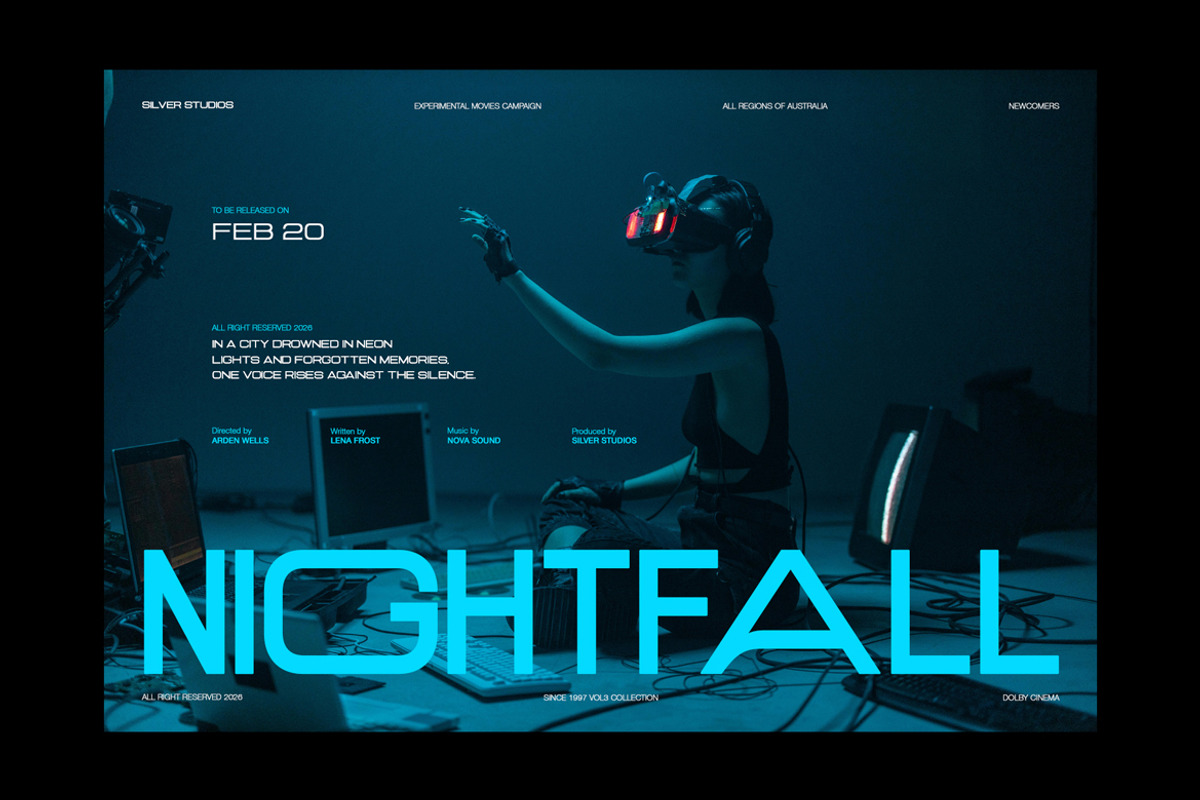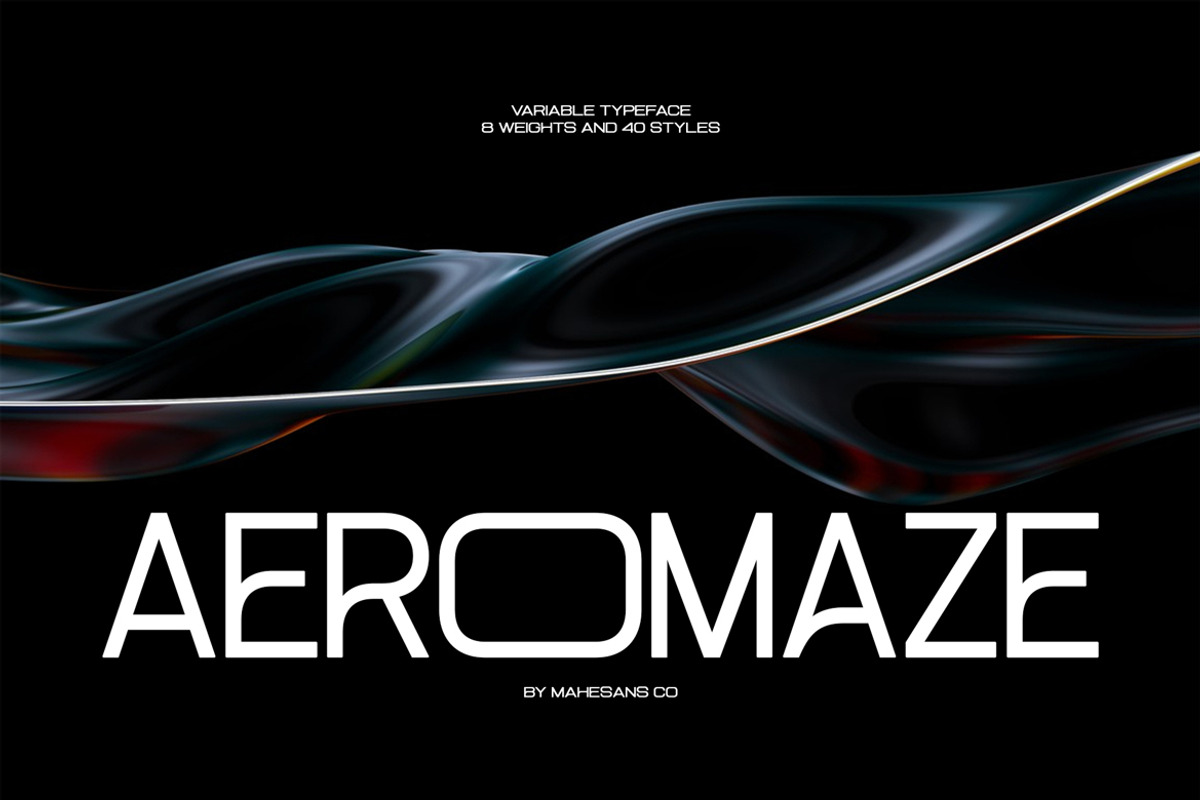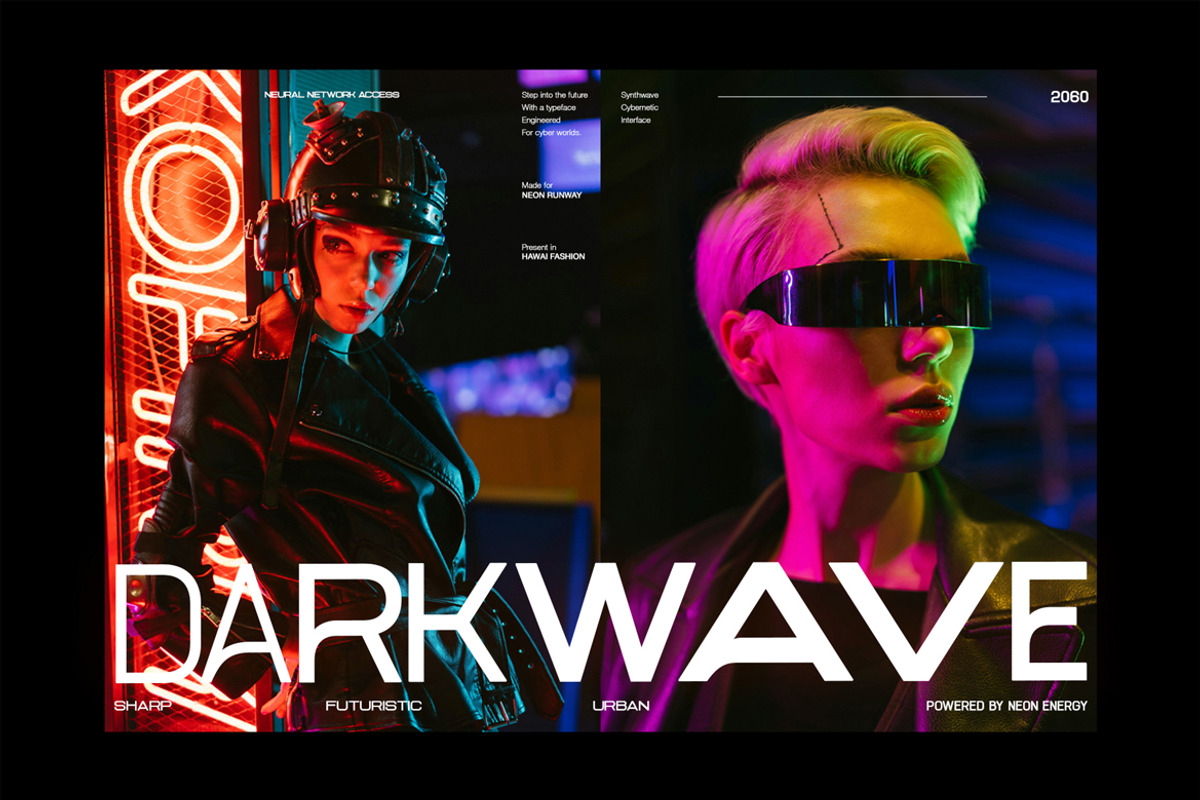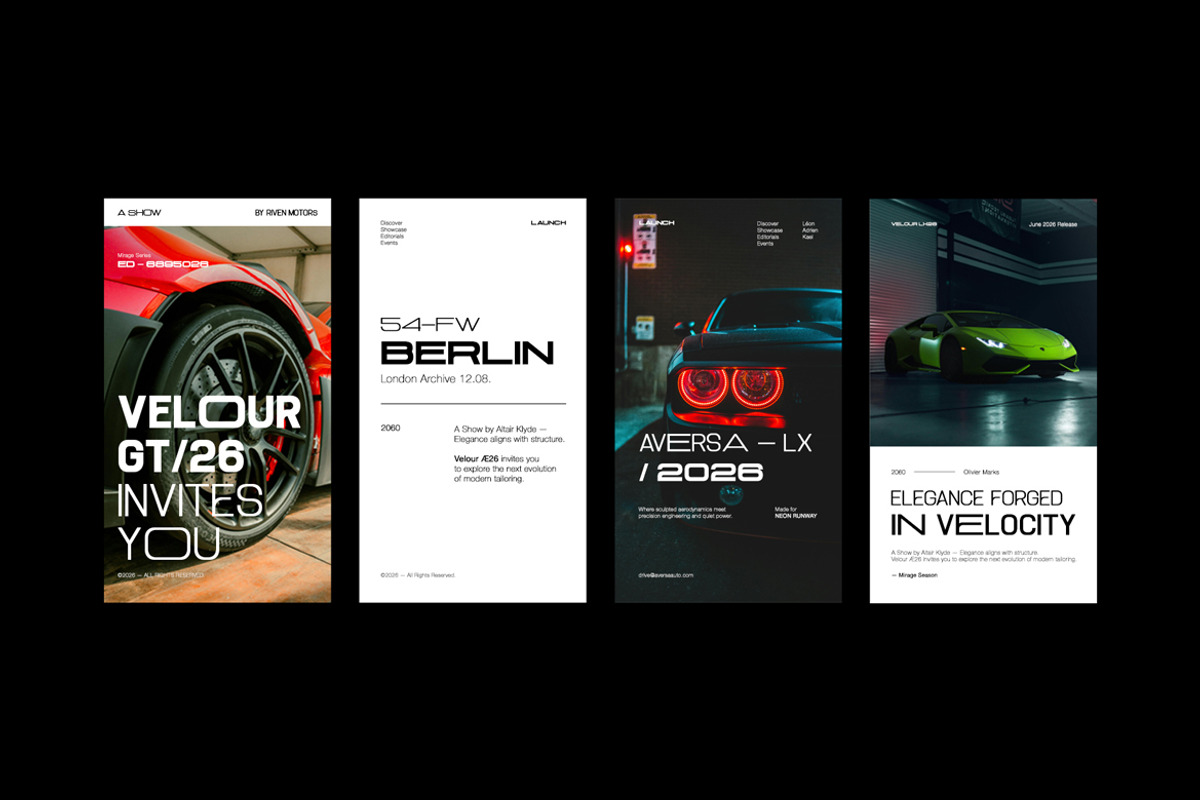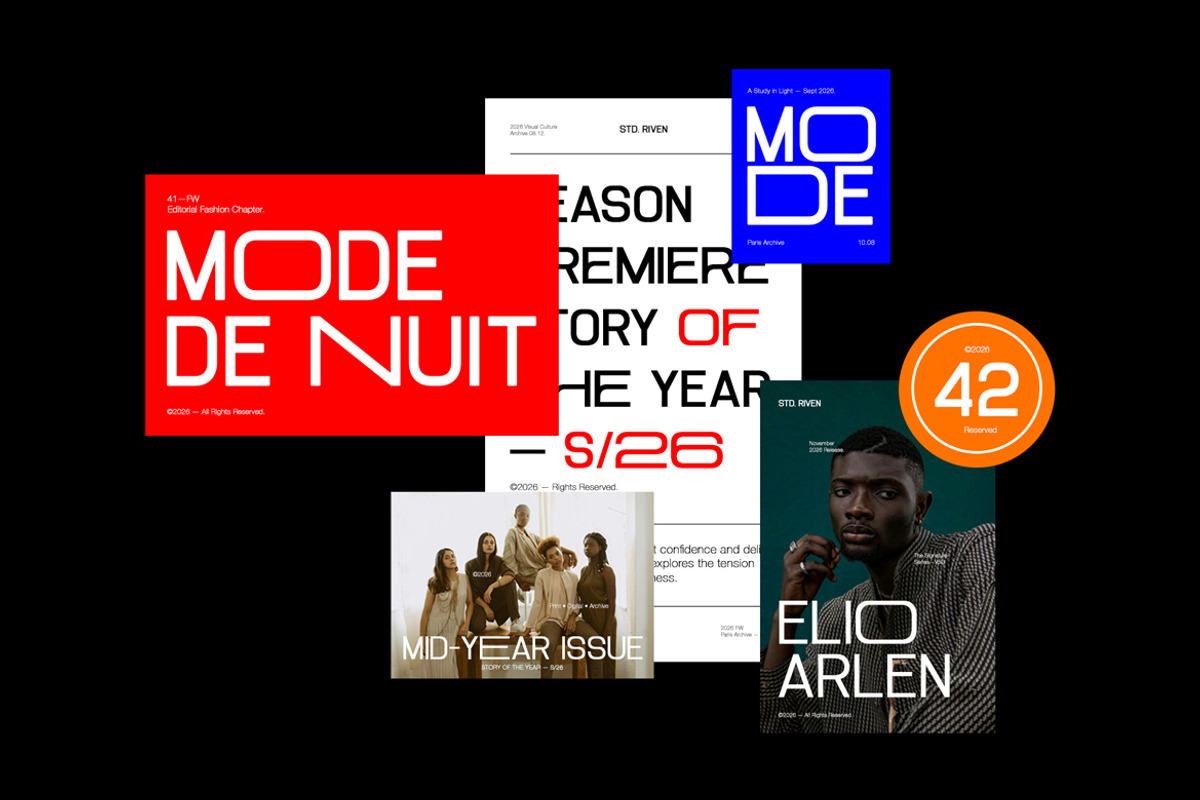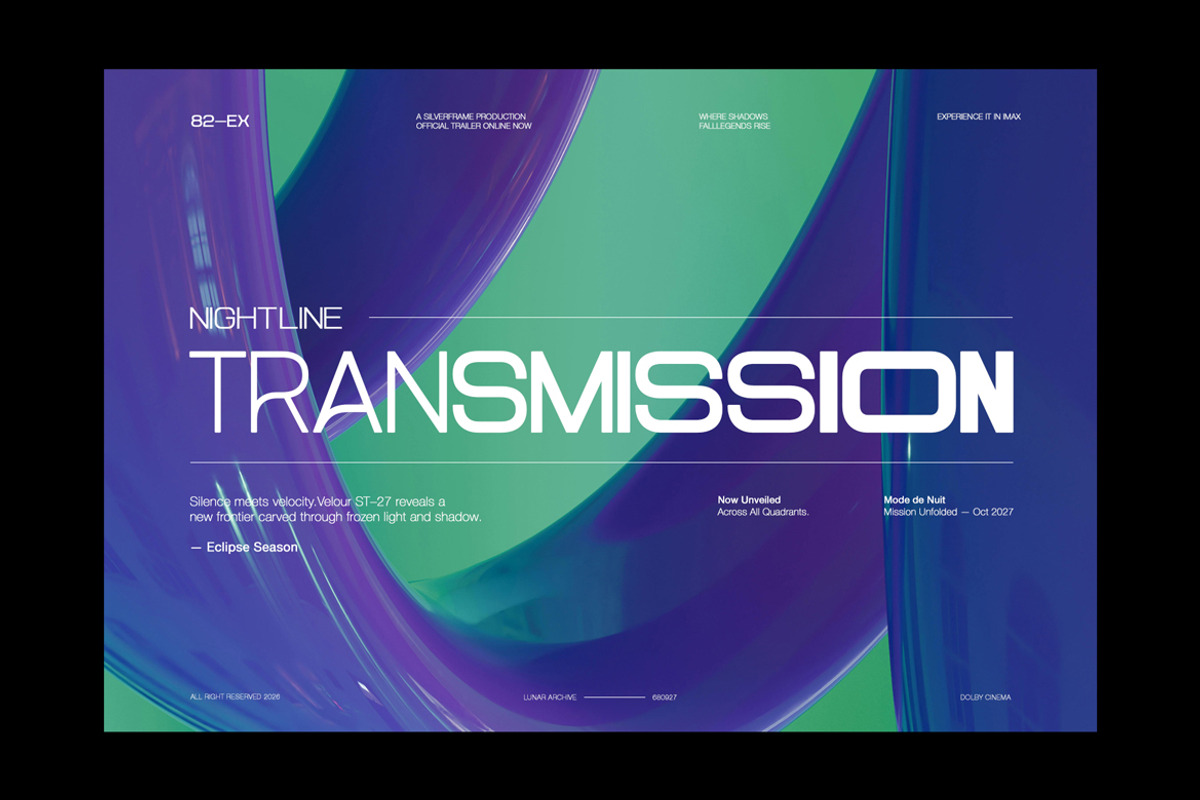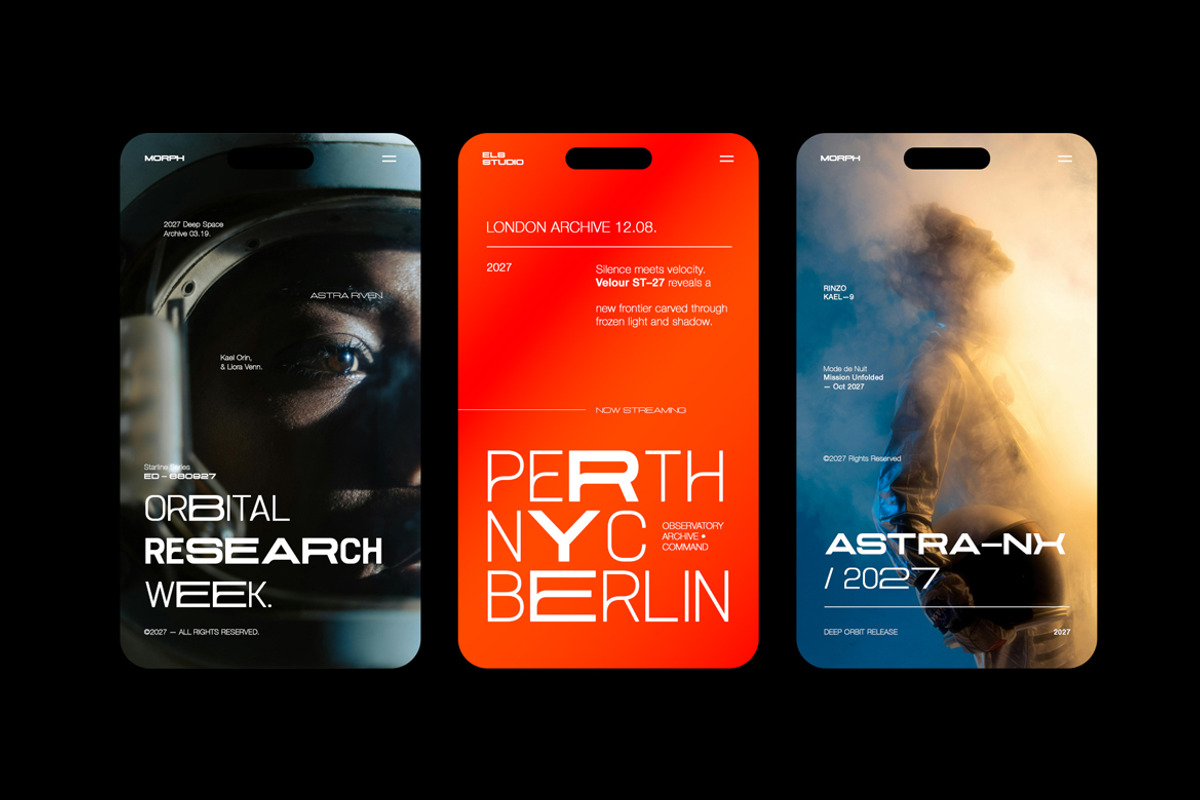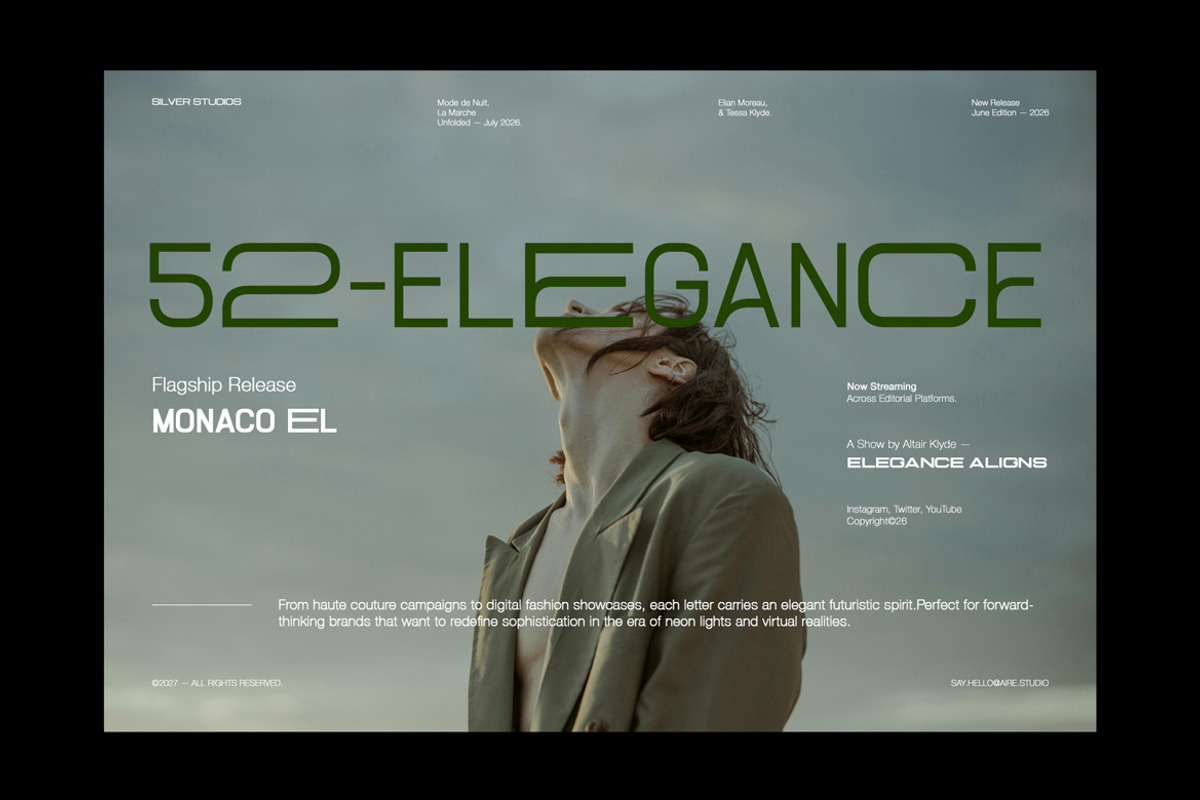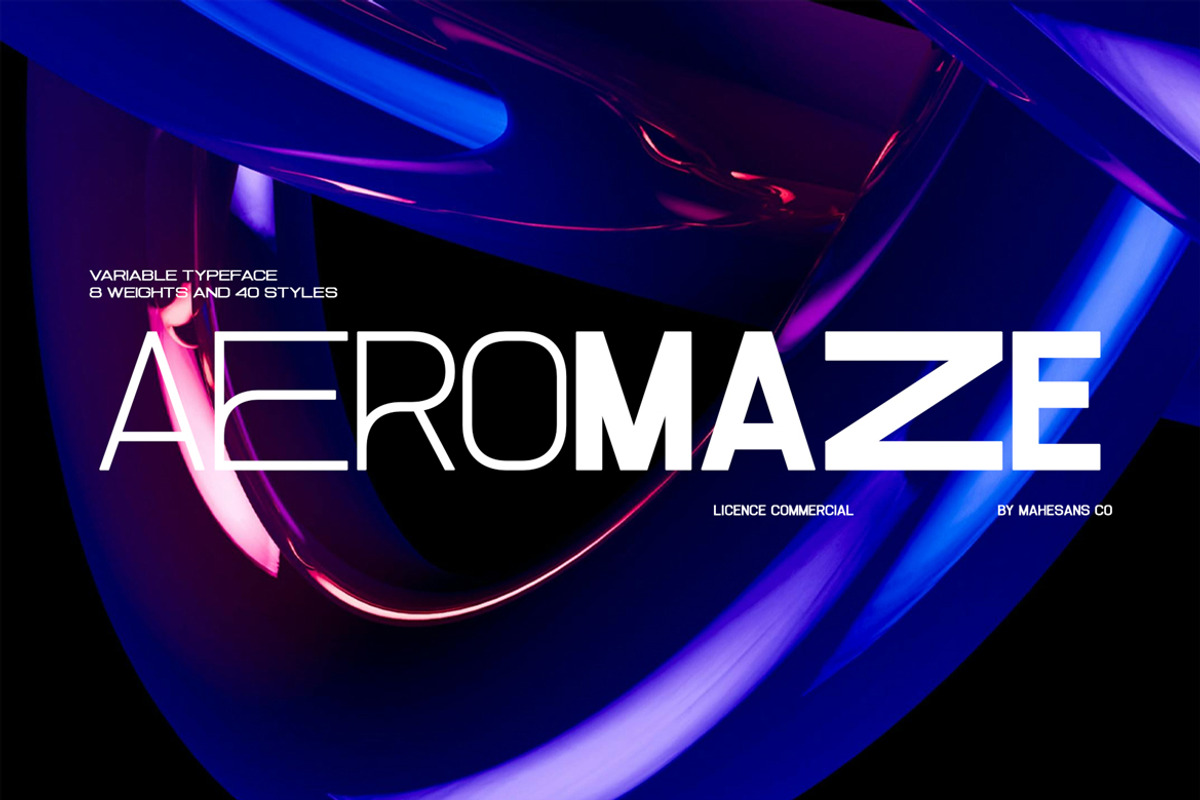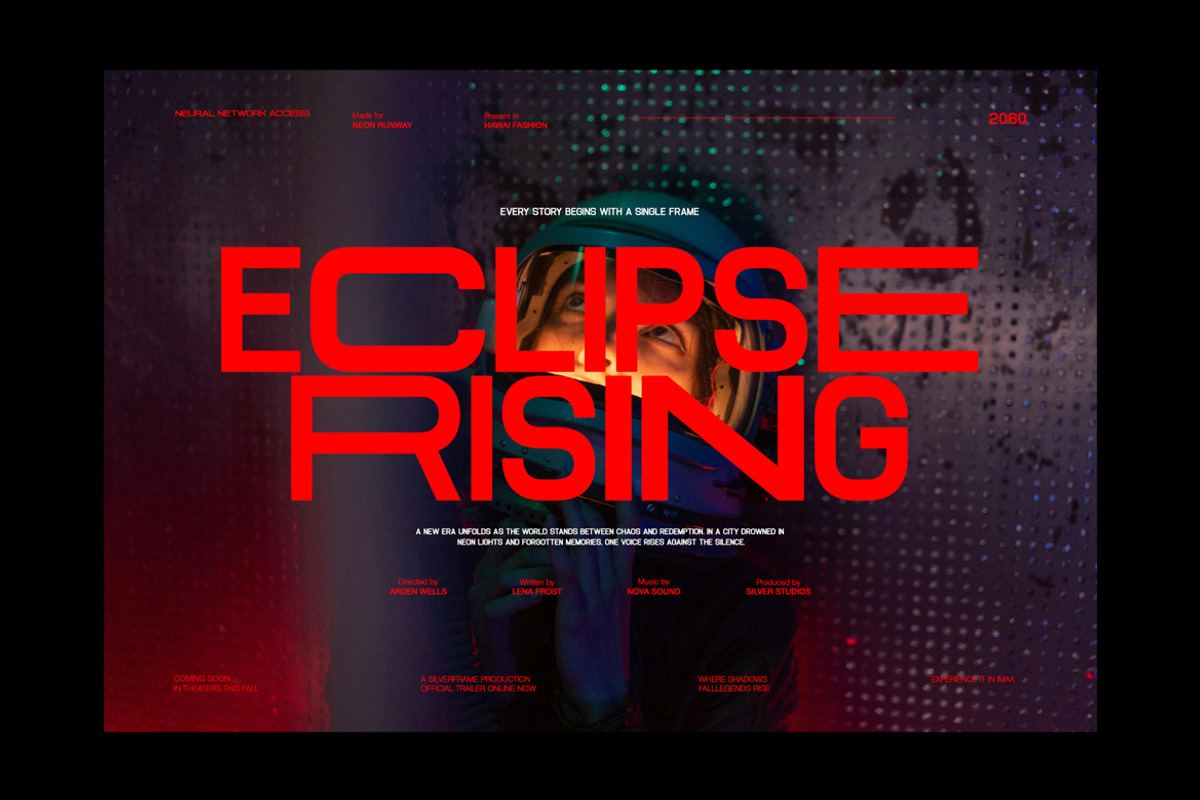
Aeromaze – Sans Family (40 Styles)
AEROMAZE is a futuristic urban sans serif family engineered for creators who design ahead of the curve, not behind it.
Crafted with clean geometry, sharp terminals, and a sleek technological aesthetic, AEROMAZE delivers a powerful visual voice for projects that live in fast-moving digital environments. From cinematic posters and tech branding to fashion editorials and UI-driven layouts, this typeface adapts effortlessly across bold headlines and minimal compositions.
Its modern structure balances precision and personality, making it ideal for contemporary branding systems, esports visuals, music covers, sci-fi themed content, product packaging, and immersive social media campaigns.
- Technology Branding
- Futuristic Posters
- Fashion & Editorial Design
- Gaming & Esports Graphics
- Film Titles & Cinematic Layouts
- UI / UX Design
- Digital Advertising
- Music Artwork
- Multilanguage